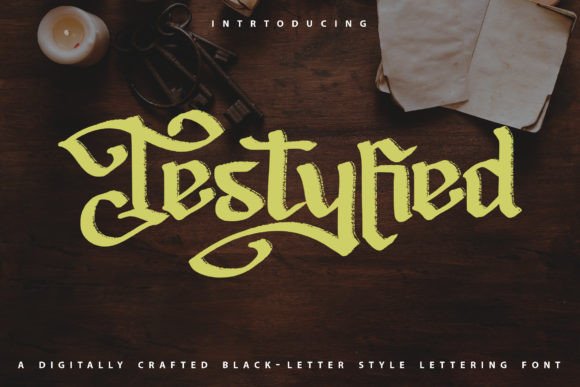
Gaze upon Testyfied, the font of legends, and immerse yourself in a realm where creativity flourishes. This blackletter masterpiece, meticulously crafted by Vunira, transcends the boundaries of ordinary typefaces, standing tall as an emblem of distinction. Let Testyfied ignite your imagination and transform your designs into captivating works of art.
With its bold and gorgeous strokes, Testyfied exudes an aura of confidence and sophistication. Each letter is a testament to precision, meticulously designed to deliver a visually striking impact. Unleash the power of Testyfied and let your designs exude an air of exclusivity and luxury.
Step into the spotlight and let Testyfied be your guide as you embark on a journey of creative exploration. This font is not merely a collection of characters; it is a gateway to a world where your ideas take flight. Its unique and distinctive style is guaranteed to leave a lasting impression, captivating your audience with its undeniable charm.
Whether you're crafting logos that demand attention, creating posters that leave a visual legacy, or designing social media graphics that ignite engagement, Testyfied is your steadfast companion. This font is a haven for those who dare to be different, who seek fonts that embody boldness and originality.
Embrace the allure of Testyfied and elevate your designs to unparalleled heights. Its versatility knows no bounds, adapting seamlessly to a myriad of creative endeavors. Let your designs radiate with the confidence and charisma that only Testyfied can provide.